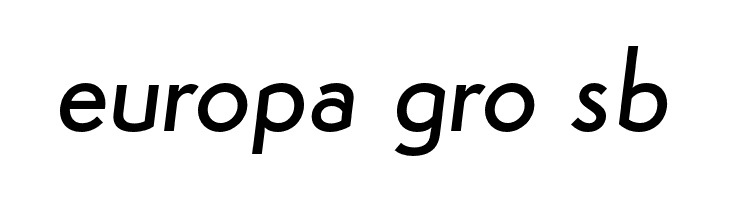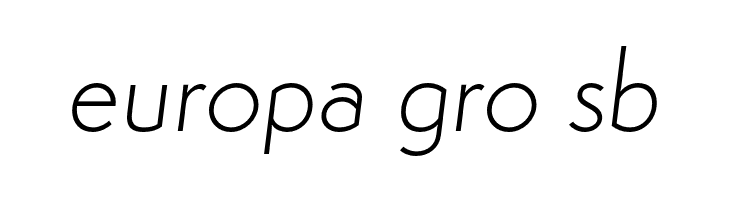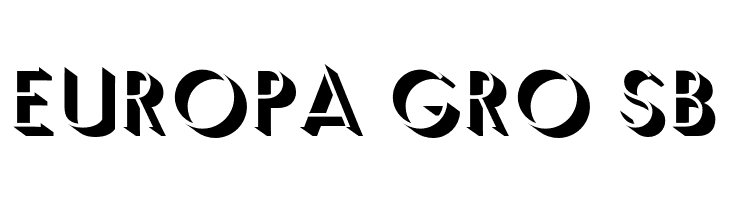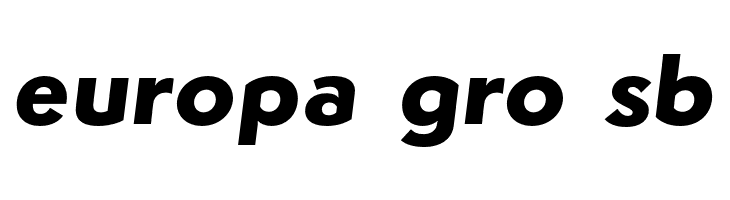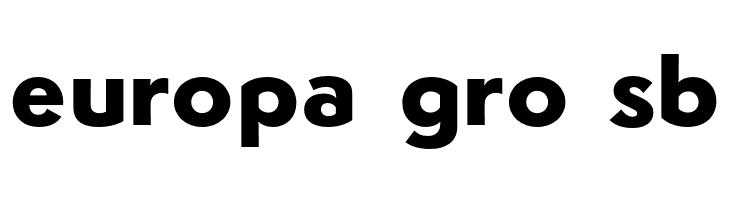
A clean, geometric sans-serif font with a modern and minimalist style.
A modern, geometric sans-serif font with a clean and professional look.
A modern, geometric italic typeface with medium contrast and a sleek, condensed style.
A sleek, light italic font with a modern and elegant style.
A bold, geometric font with a unique shadow effect for a three-dimensional look.
A bold, geometric sans-serif typeface with a modern and minimalistic design.